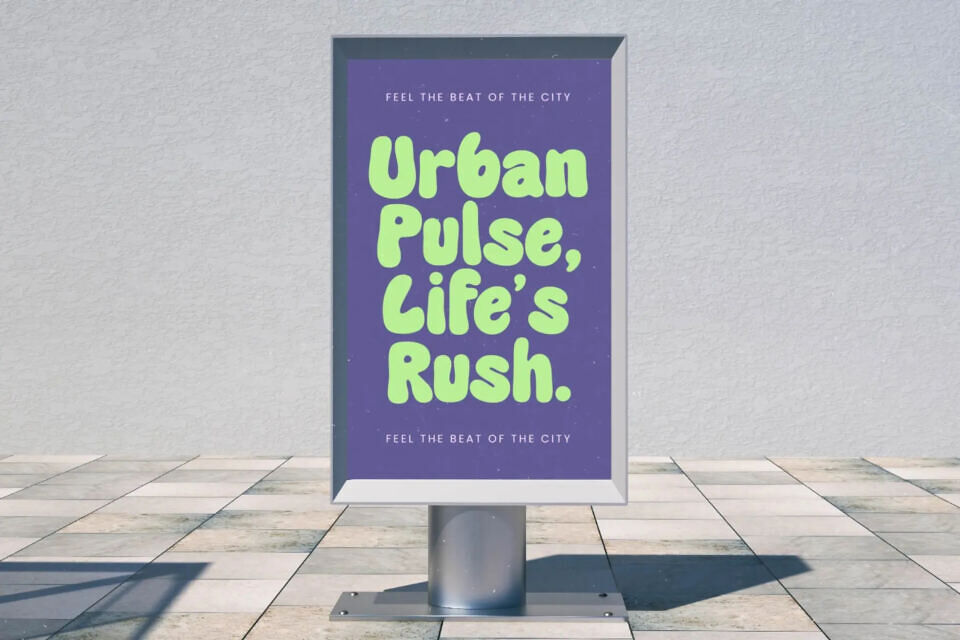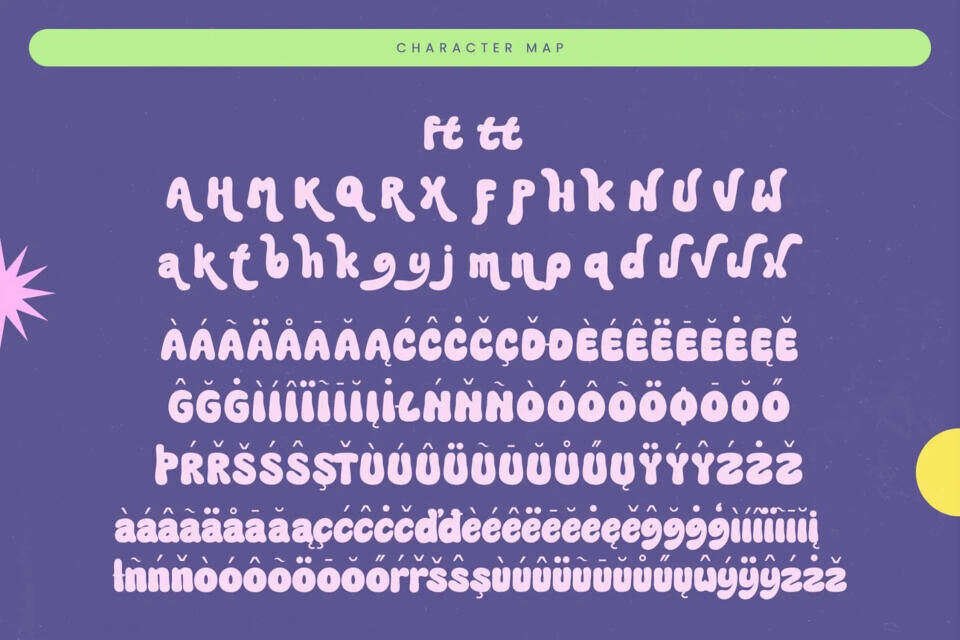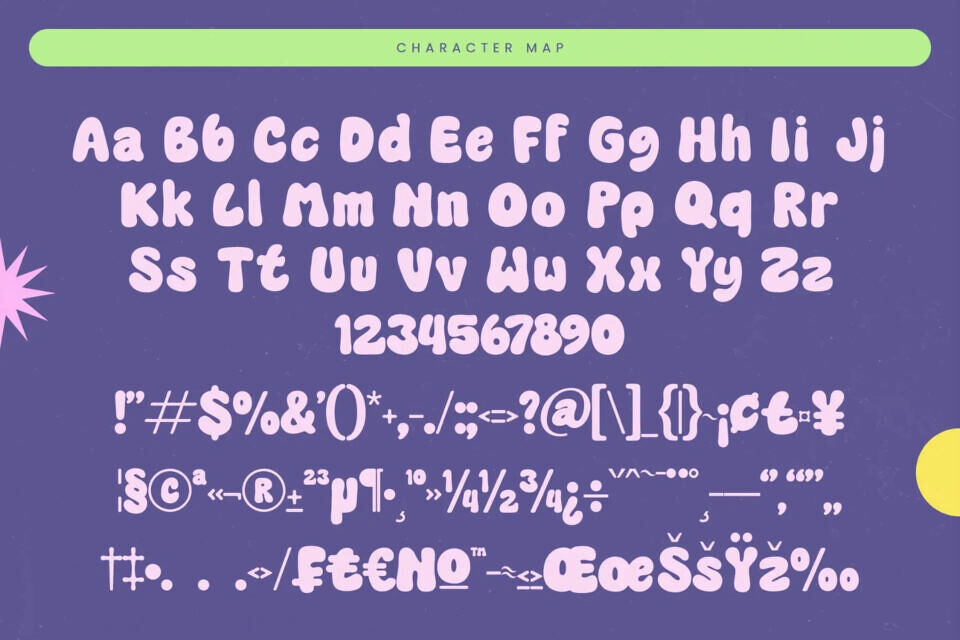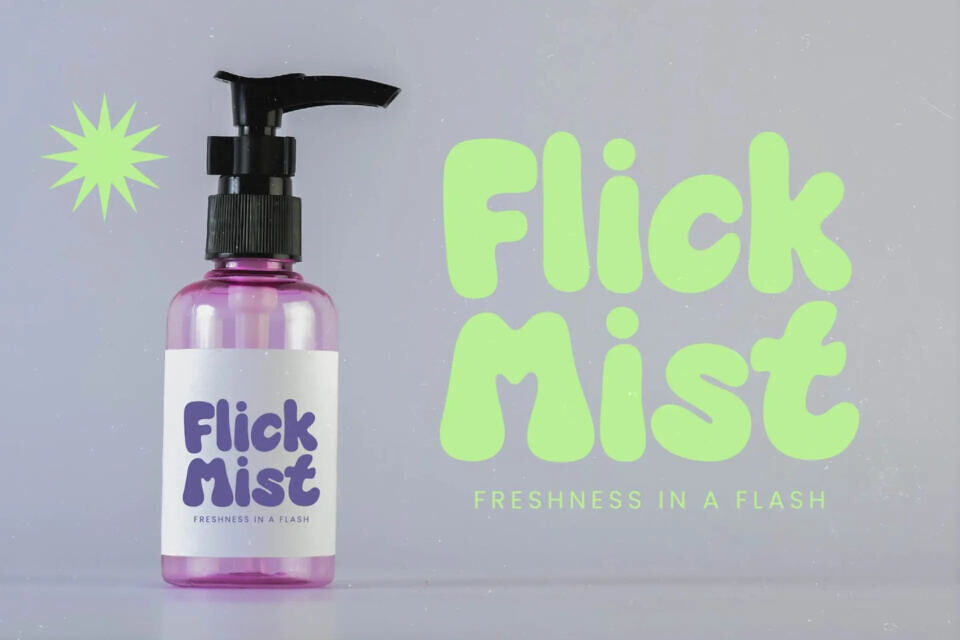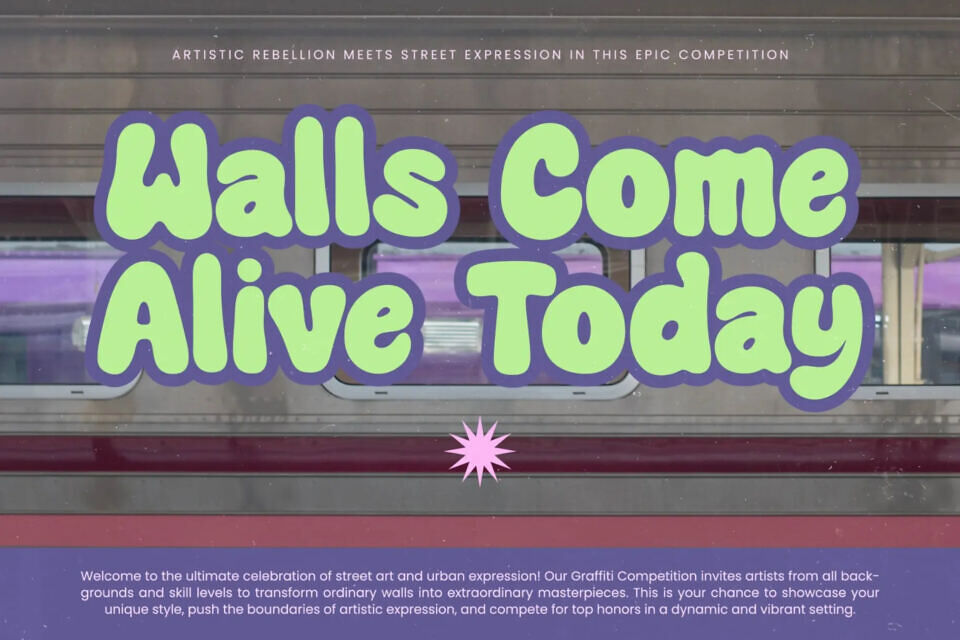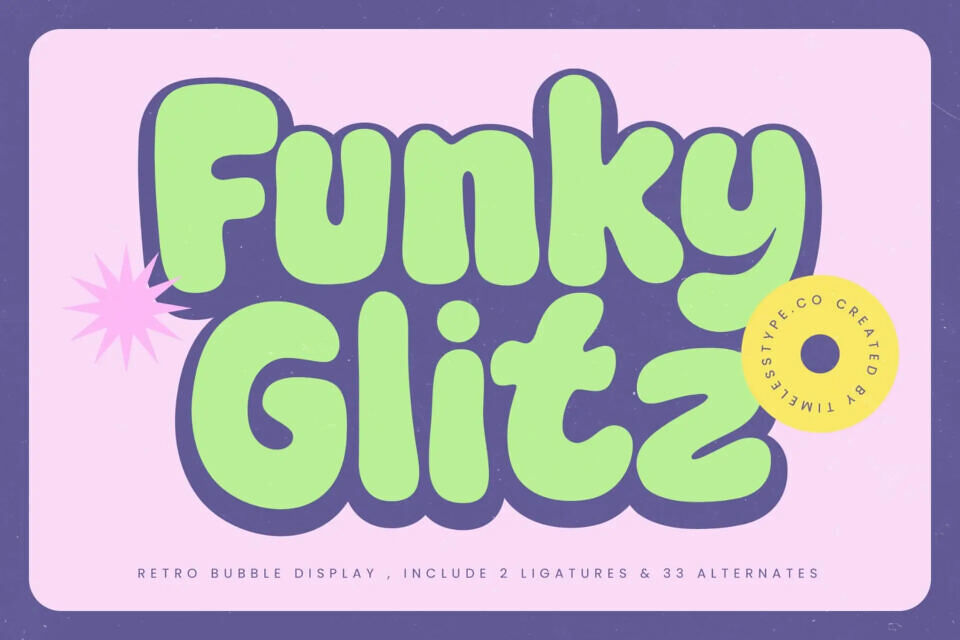
Funky Glitz Font
The Funky Glitz font exudes a fun, vibrant vibe with its retro bubble style. Featuring 2 ligatures and 33 stylistic alternates, it offers designers flexibility to create bold, playful designs.
Perfect for projects needing a youthful, eye-catching feel, it’s ideal for editorial, branding, and entertainment design, as well as digital graphics, where its unique style shines and adds a modern twist to nostalgic 70s and 80s flair.